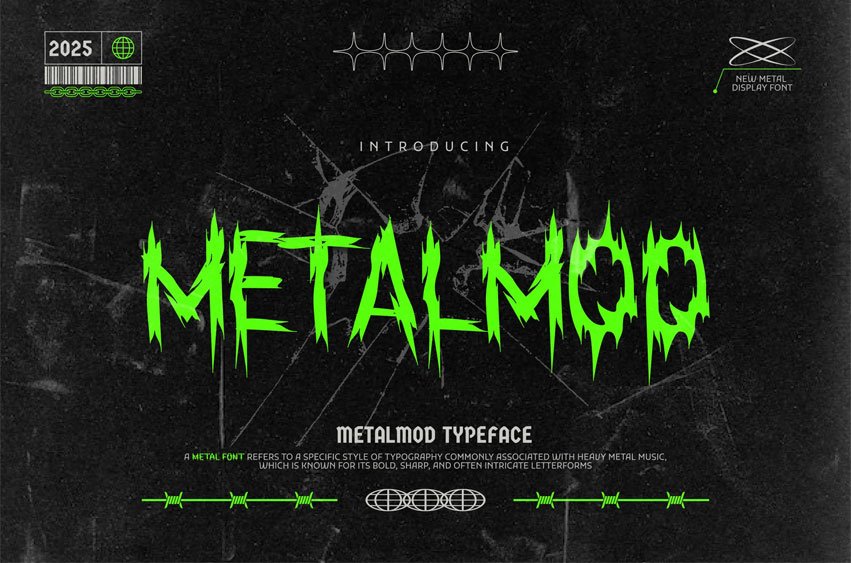
Metalmod Font is a premium Black Rock Metal Band font designed to bring dark, gothic intensity to your branding and design projects. Crafted with modern blackletter and gothic influences, this font offers a sleek, stylish, and professional touch for logos, marketing materials, packaging, and digital applications.
Whether you’re working on a rock band logo, Metalmod will give your design a bold, rebellious edge. It’s ideal for use in high-energy music posters, event flyers, and more.
Font Features:
- Clear and Versatile Design: Offers easy readability with a modern style that stands out in both digital and print mediums.
- Complete Character Set: Uppercase and lowercase characters, numbers, punctuation, and symbols.
- OpenType Features: Access alternates, ligatures, and unique stylistic sets to customize your design.
- Multilingual Support: Includes support for multiple languages, including English, Spanish, French, German, Portuguese.
Metalmod combines sharp lines and dark edges to create a striking visual impact while maintaining clarity. Whether you are designing for rock band branding, music events, this font adapts to your needs and enhances the visual appeal of your design.
Perfect For:
- Rock Music Branding: Perfect for bold and intense logos.
- Music Posters: Add impact to your promotional materials.
- Band Merchandise: Create unique designs for apparel and promotional items.
- Event Invitations: Make a statement with heavy, gothic font styles.
- Alternative Design Projects: Ideal for edgy, underground creative ventures.